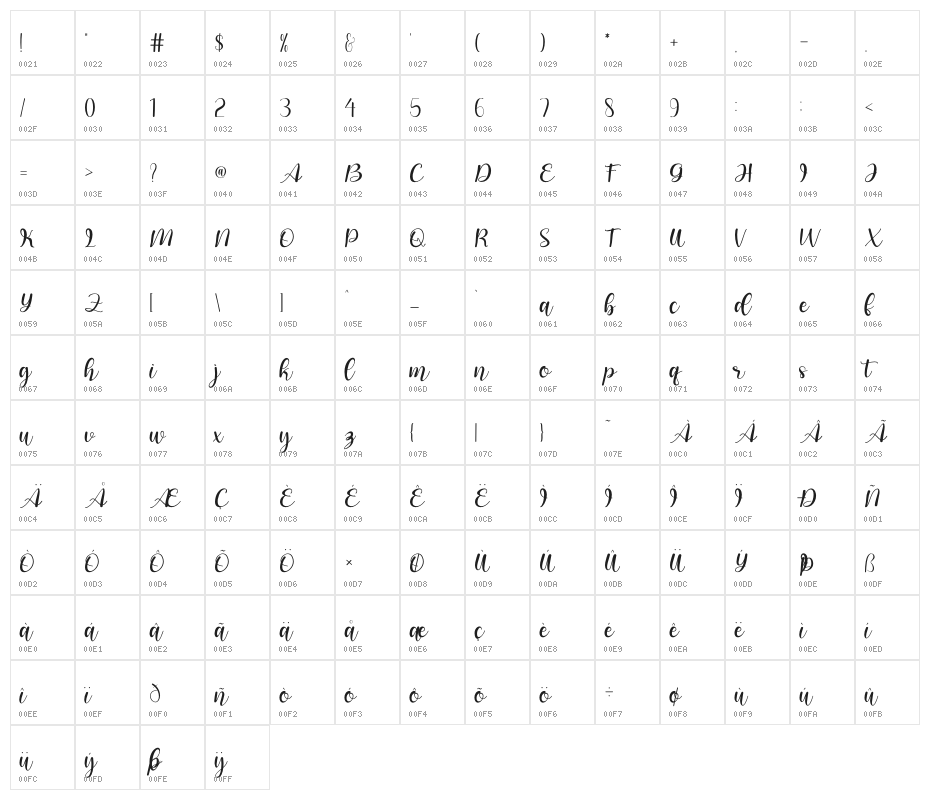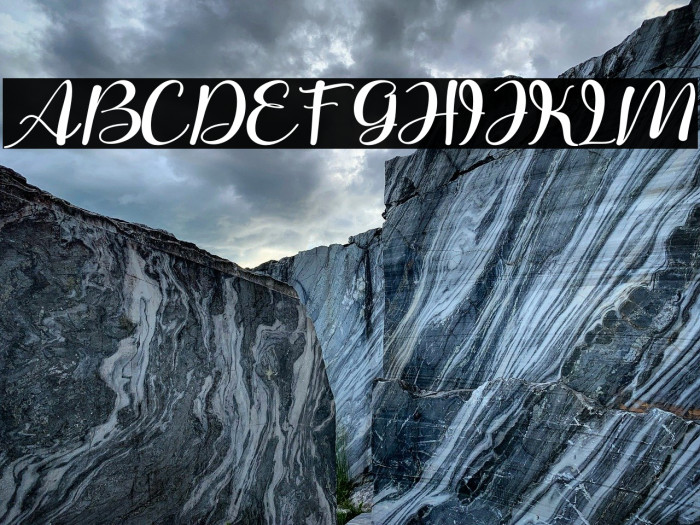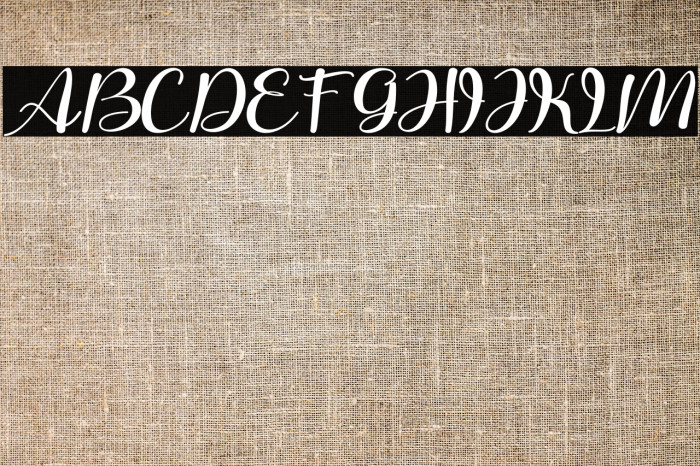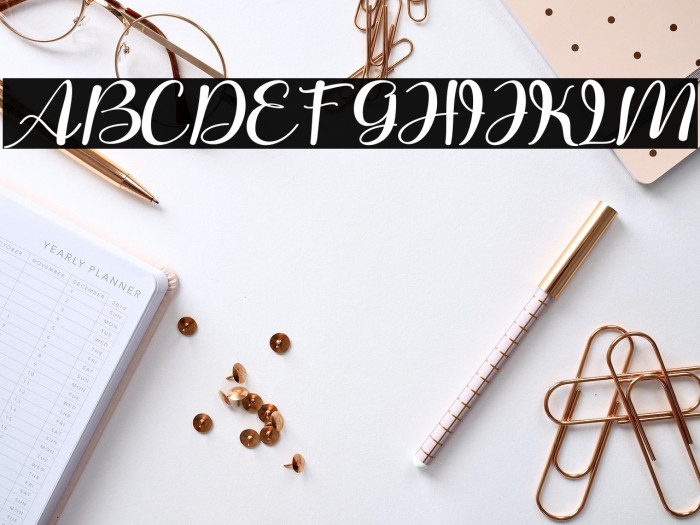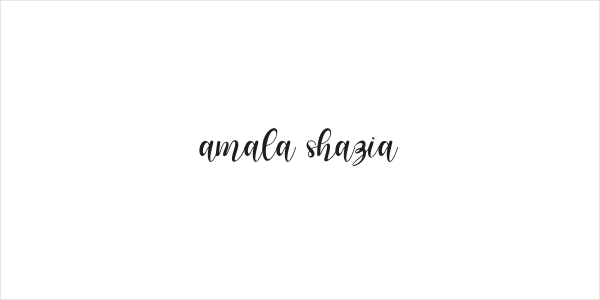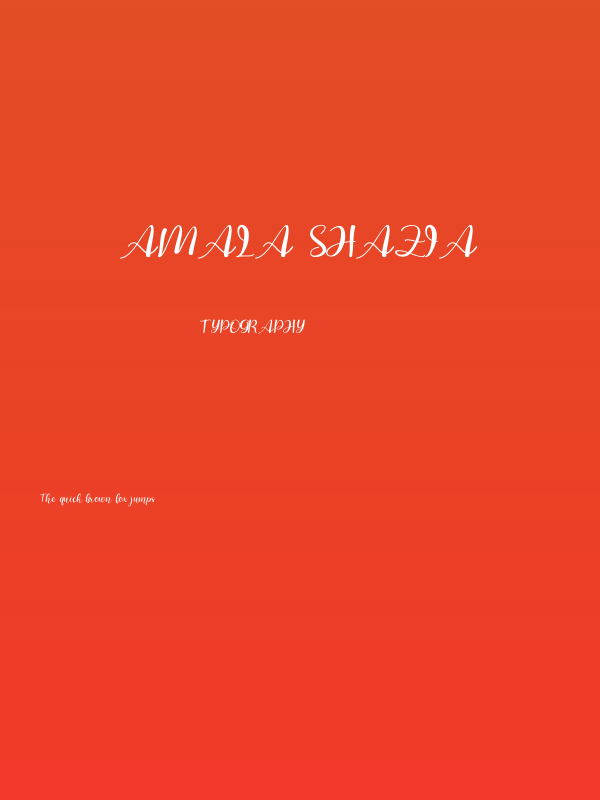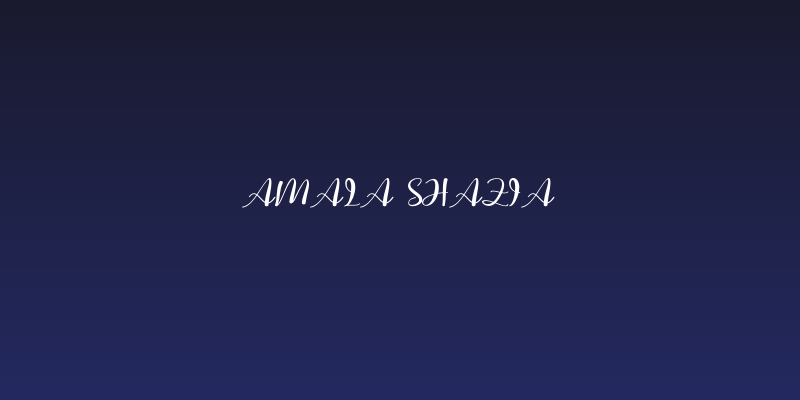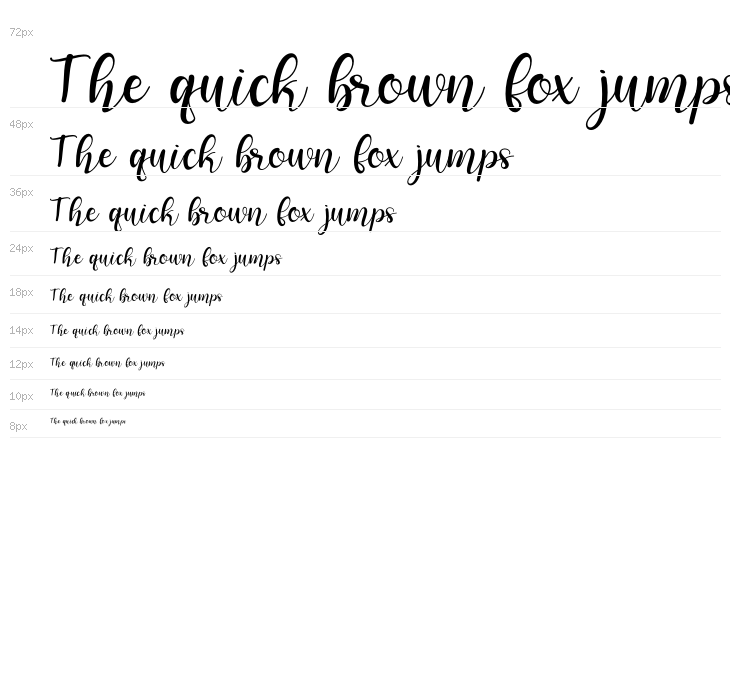
amala shazia Font
amala shazia Description
This font features a flowing, cursive style with elegant, sweeping lines and a handwritten feel. The uppercase letters are bold and expressive, with distinctive loops and flourishes that add a touch of sophistication. The lowercase letters maintain a consistent style, offering a smooth transition between characters. Numbers and special characters are designed to complement the overall aesthetic, ensuring a cohesive look. The font's balance between bold strokes and delicate curves makes it suitable for a variety of creative applications.
Use CaseLogos, Headlines, Invitations
Proposed ProjectsIdeal for wedding invitations, greeting cards, branding, and logo design.